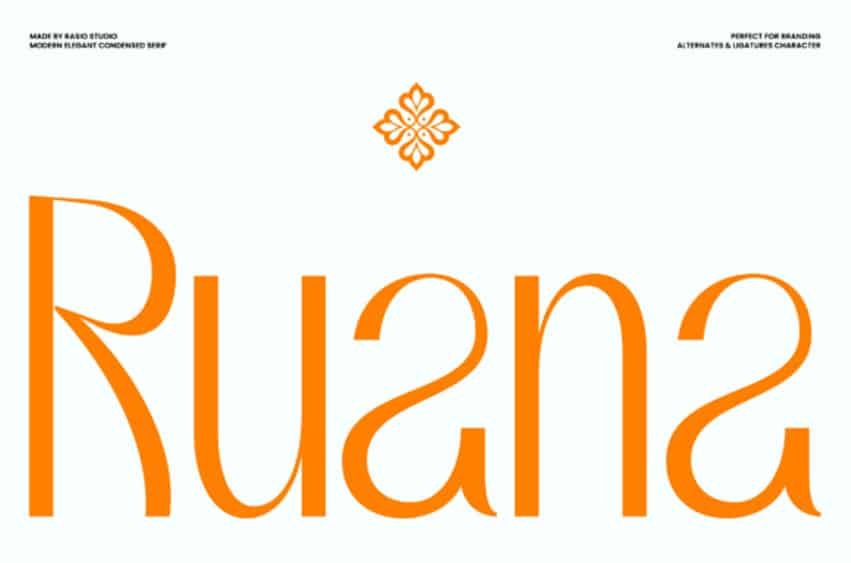
Ruana Font Infuse high-fashion poise, sleek sophistication, and editorial luxury into your typography with RUANA! Crafted as a modern elegant condensed serif, it features tall narrow stems, dramatic high-waisted arches, and artfully fluid alternate characters with sweeping swashes. Packed with stylish alternates and ligatures, this typeface gives you total creative control to build unique, eye-catching layouts.
Whether you’re designing luxury brand identities, high-end beauty packaging, fashion magazine titles, wedding invitations, chic cosmetics labeling, or custom vinyl craft SVG cut files, RUANA elevates your message with effortless, timeless grace!